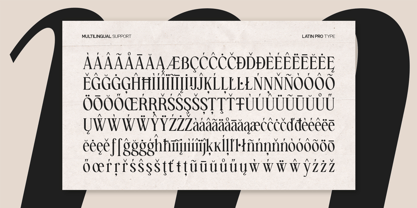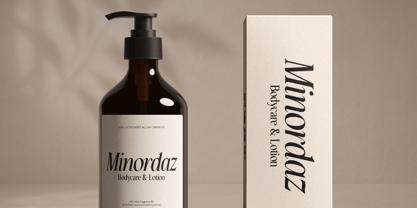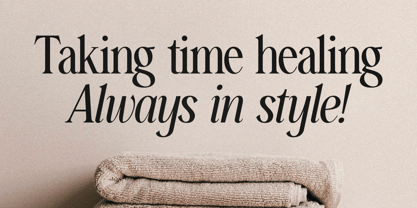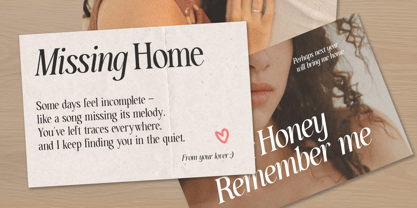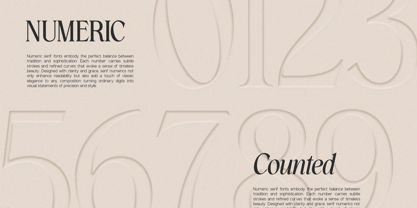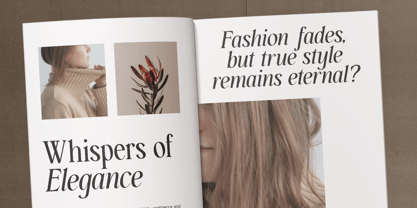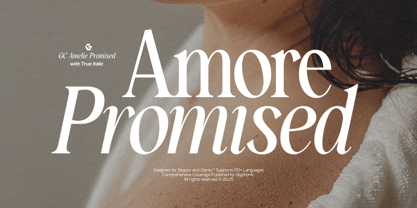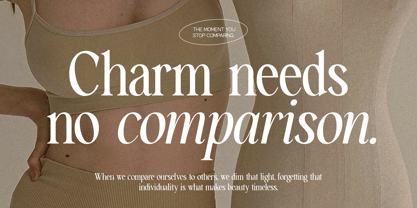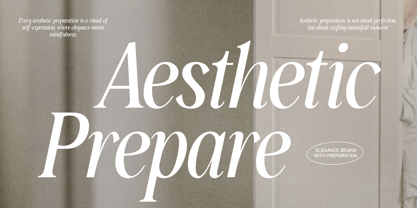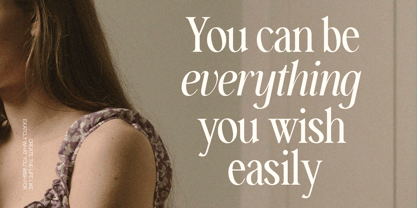
GC Amore Promised
The GC Amore Promised Font Family was designed by Muhammad Hafiizh Solana and published by Onyx Studio. GC Amore Promised contains 2 styles and family package options. More about this family
GC Amore Promised is a refined italic serif typeface crafted to express grace, beauty, and timeless sophistication. With elegant curves and high contrast strokes, it brings a romantic yet modern character to any visual composition. Designed to embody femininity and confidence, this typeface is perfect for editorial designs, fashion branding, beauty packaging, and elegant logotypes. Balanced letterforms and true italic detailing make GC Amore Promised a distinctive choice that adds depth and allure to your typography. Whether used for magazine titles, perfume branding, or minimalist posters, it delivers an elevated aesthetic that feels both classic and contemporary. Features: Uppercase & Lowercase Numbers & Punctuation True Italic Construction Multilingual Support (170+ Languages) Bring elegance, emotion, and modern sophistication to your design with GC Amore Promised.